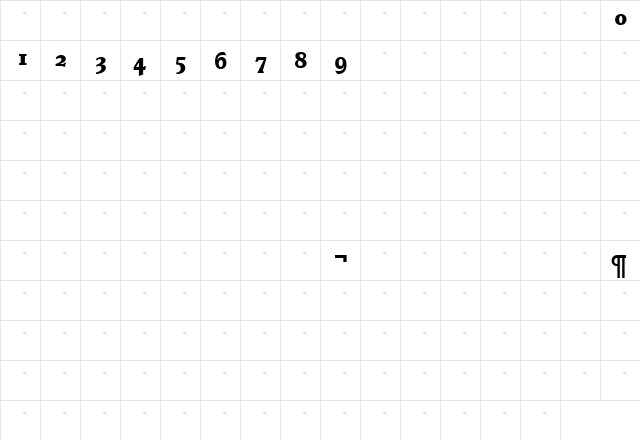
VeroneseExtraBoldOldStyleFigures Medium
VeroneseExtraBoldOldStyleFigures brings classic typographic sensibility to the table — its serifs and measured letterforms reflect centuries of print heritage. Its bold stroke weight gives it real presence on the page.
Pro Tip: Set VeroneseExtraBoldOldStyleFigures with slightly loose tracking in headlines to let each letterform's detail read clearly at display sizes.